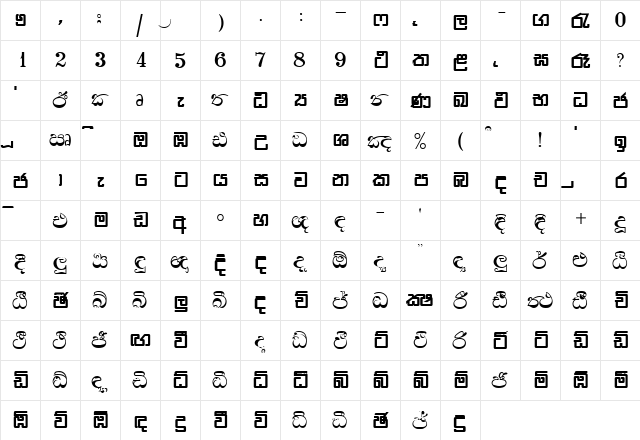
DL-kotu Normal
Design Context for DL-kotu Typeface
DL-kotu takes a measured approach to typography — its balanced proportions and neutral character make it a reliable workhorse for both digital and print work.